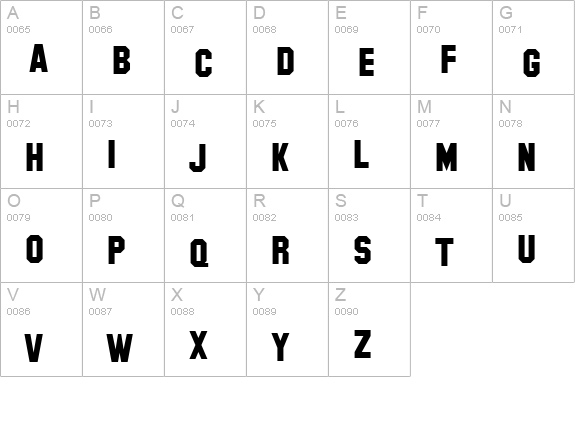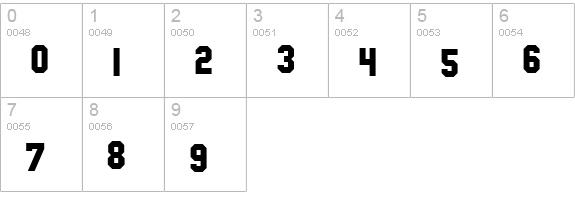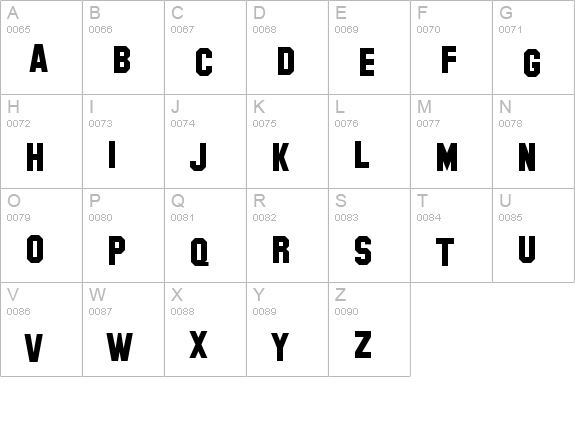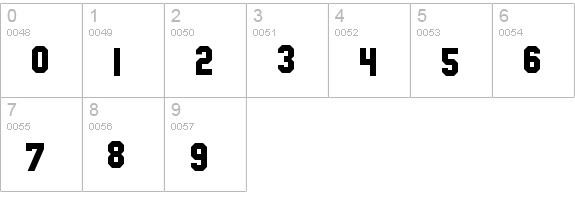
The SF Hollywood Hills font is a stunning display typeface that will transport you straight to the glitz and glamour of Hollywood. With its sleek and modern design, this font exudes sophistication and style, making it perfect for any project that aims to make a statement. Featuring bold and angular letterforms, SF Hollywood Hills commands attention and demands to be noticed. Whether used in movie posters, headlines, or branding materials, this font adds a touch of Hollywood magic to any design. One of the best things about SF Hollywood Hills is that it is available for free! Yes, that's right, this captivating font can be freely downloaded at FontsMarket.com. Now you can have access to the same font used by the biggest movie studios and renowned designers without spending a dime. Make your designs shine like the stars on the Hollywood Walk of Fame with SF Hollywood Hills. Its sleek and elegant aesthetic will elevate any project, making it the perfect choice for those who want to add a touch of Hollywood glamour to their creations. Download SF Hollywood Hills today and let your creativity shine!